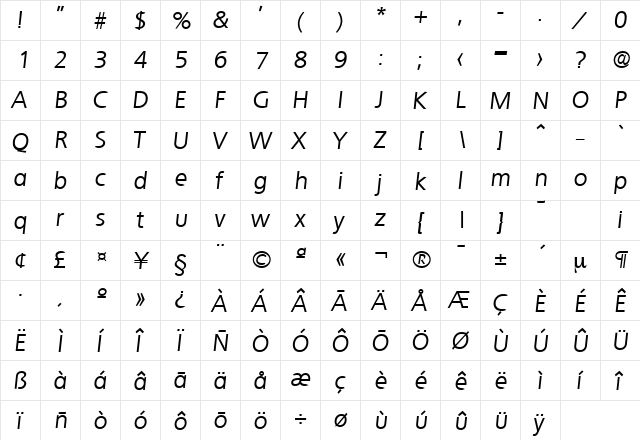
Quebec-Serial RegularItalic
Design Context for Quebec-Serial Typeface
Quebec-Serial is a composed and adaptable typeface that performs quietly and consistently across a wide range of design contexts. The slanted form adds forward momentum and visual energy.
Pro Tip: Try Quebec-Serial for annotation and caption copy alongside an upright companion — the contrast in angle creates a dynamic but ordered typographic system.